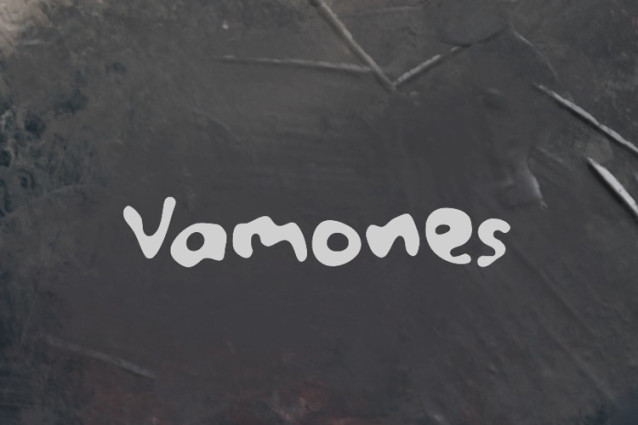
Vamones Font
Vamones Font is a chunky, comic, and cartoon display font. With its neat and joyful personality, this font will enhance any project you wish to create!